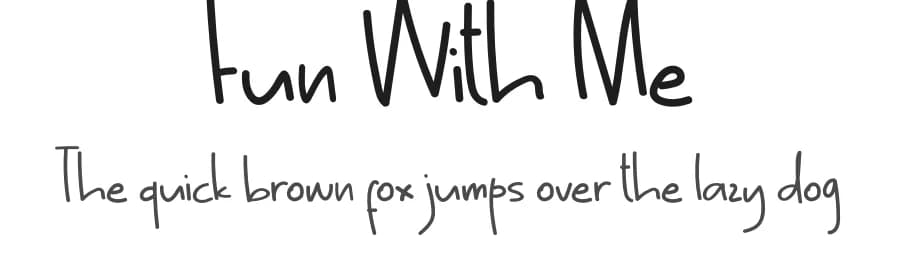
About Fun With Me Font
Fun With Me Specifications
| Font Family | Fun With Me |
| Full Name | Fun With Me |
| Glyph Count | 90 glyphs |
| PostScript Name | FunWithMeRegular |
| Designer | Creative Zone |
Fun With Me Font is a script font that shines as a display or heading face. Pair it with a clean sans-serif or serif font for body text β the contrast creates a clear hierarchy while the two styles stay balanced and easy to read.
Fun With Me Font